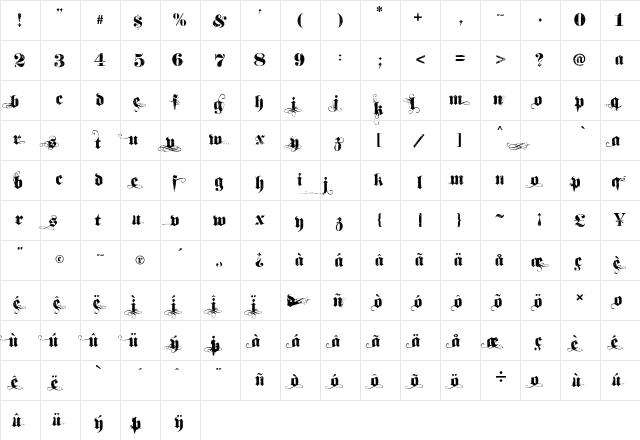
Dirt2 SoulStalker Font Preview
Dirt2 SoulStalker Dirt2 SoulStalker
Dirt2 SoulStalker Font Details
Design Context for Dirt2 SoulStalker Typeface
Dirt2 SoulStalker is a composed and adaptable typeface that performs quietly and consistently across a wide range of design contexts.